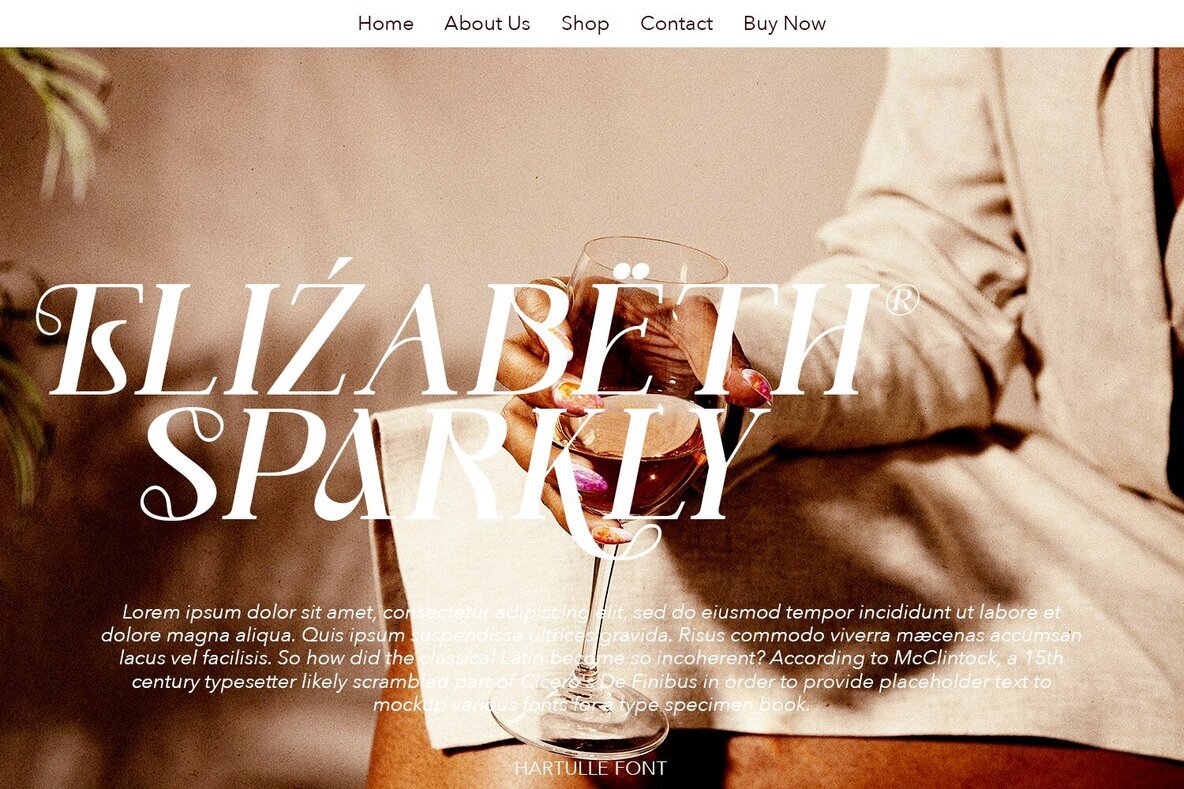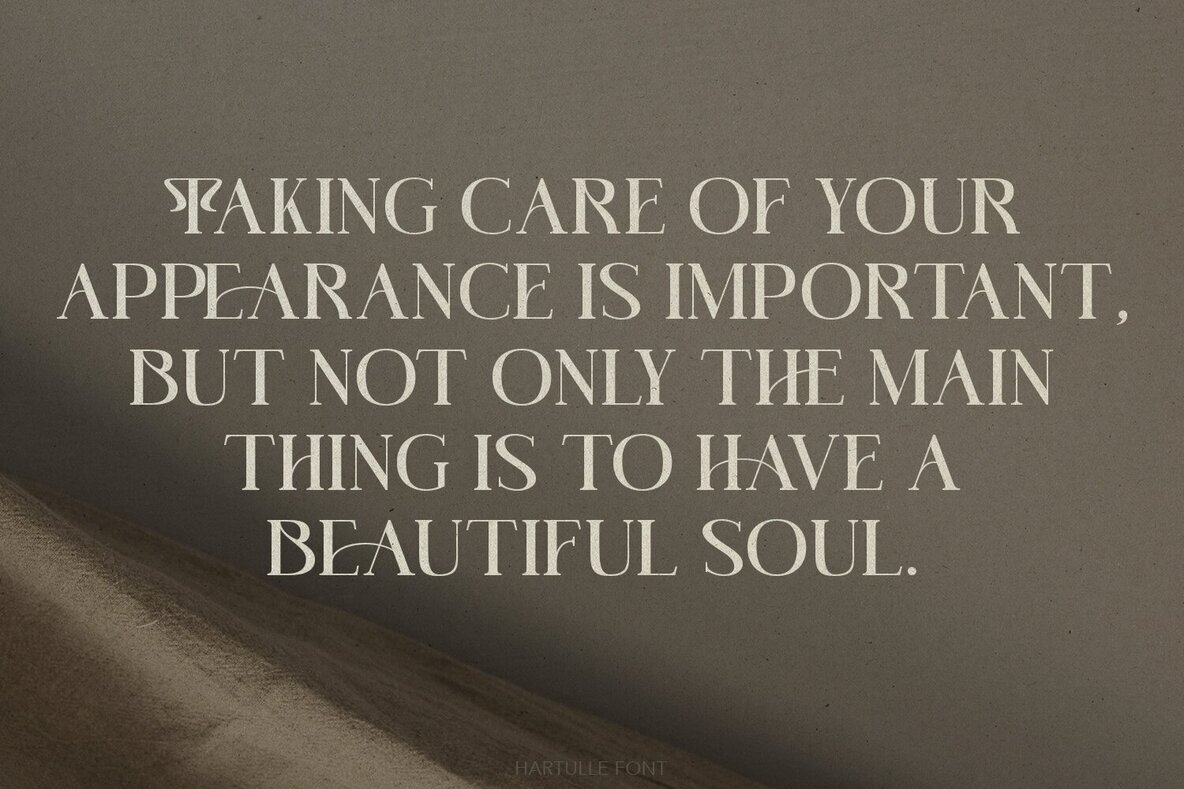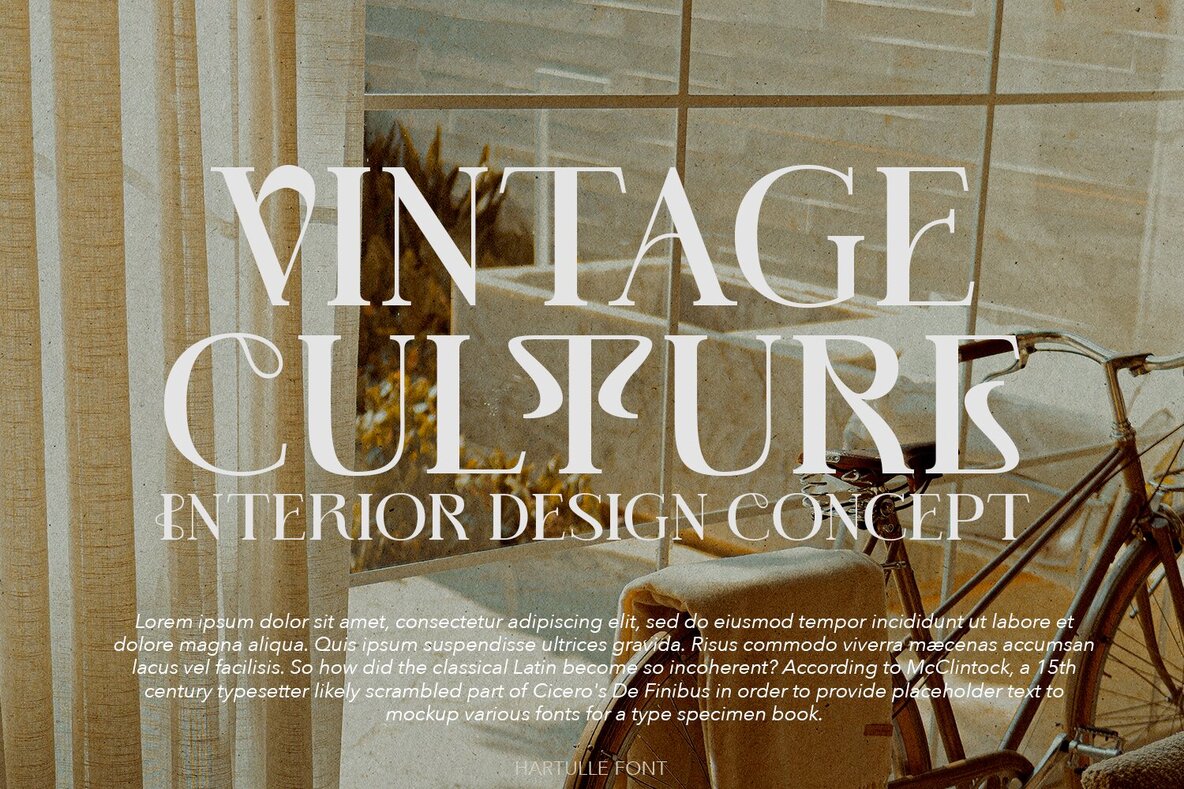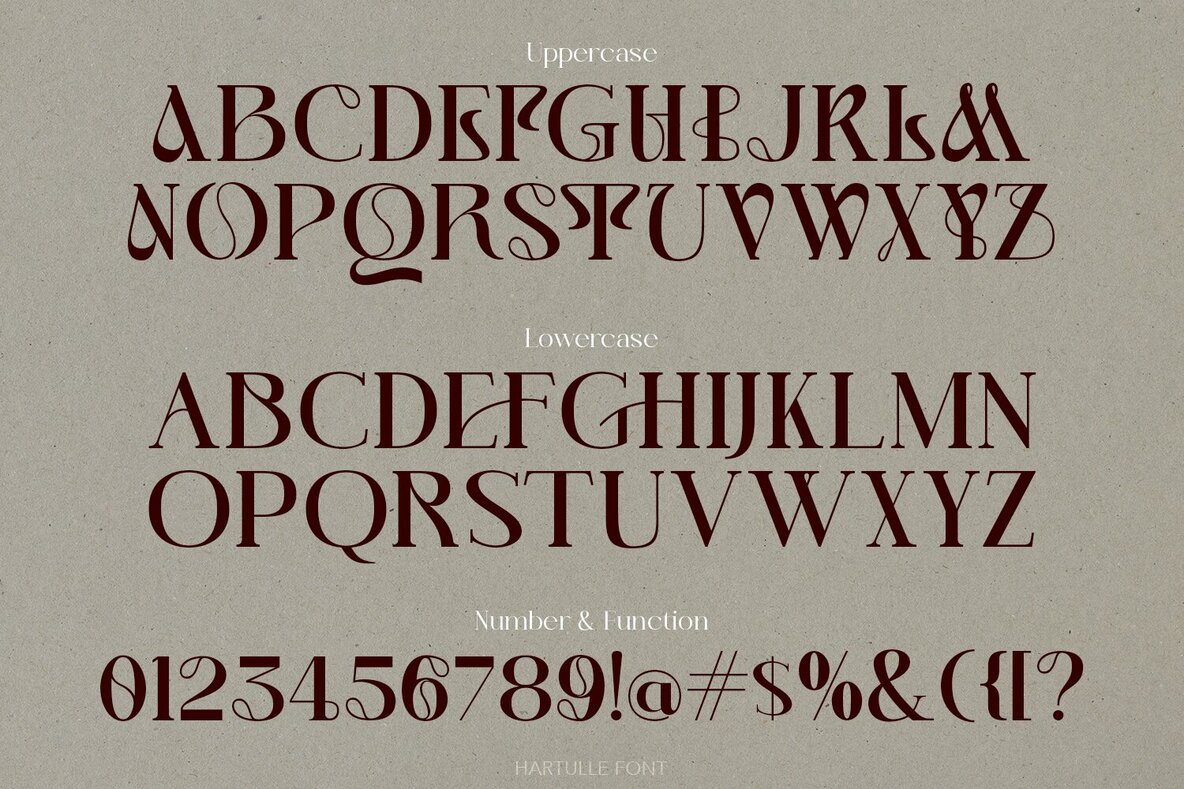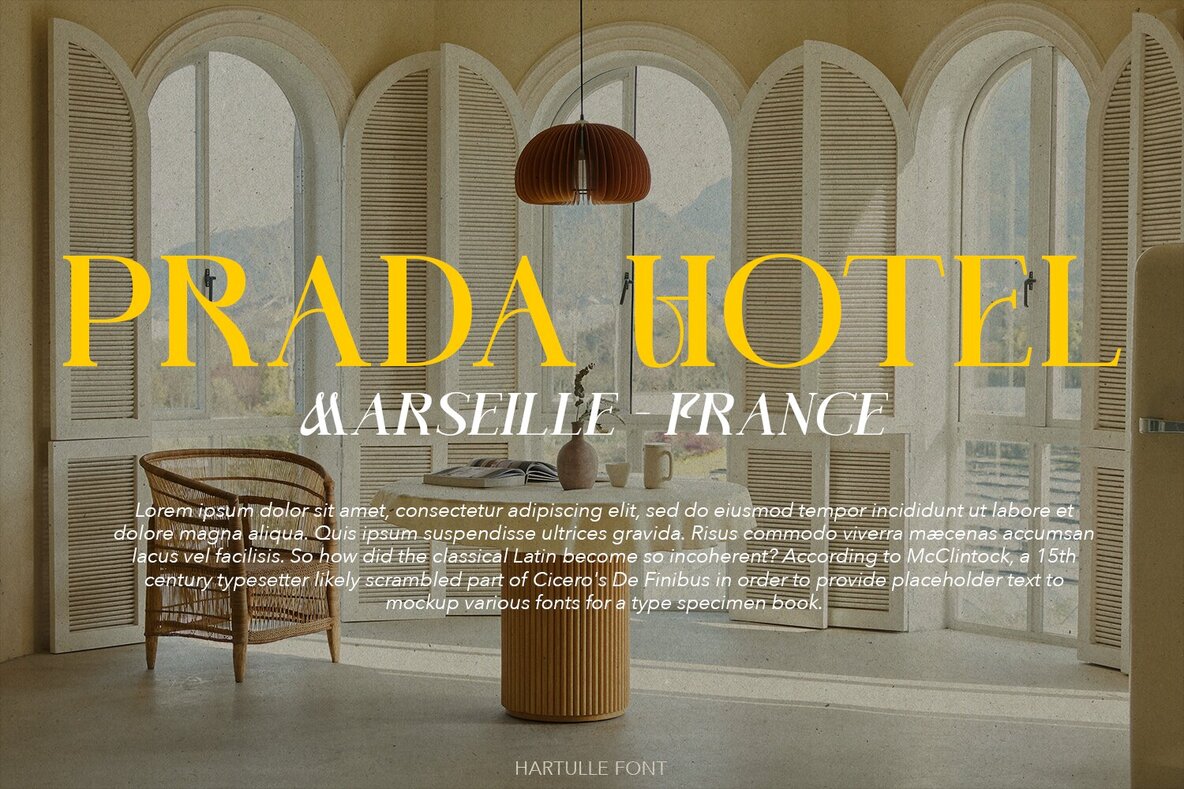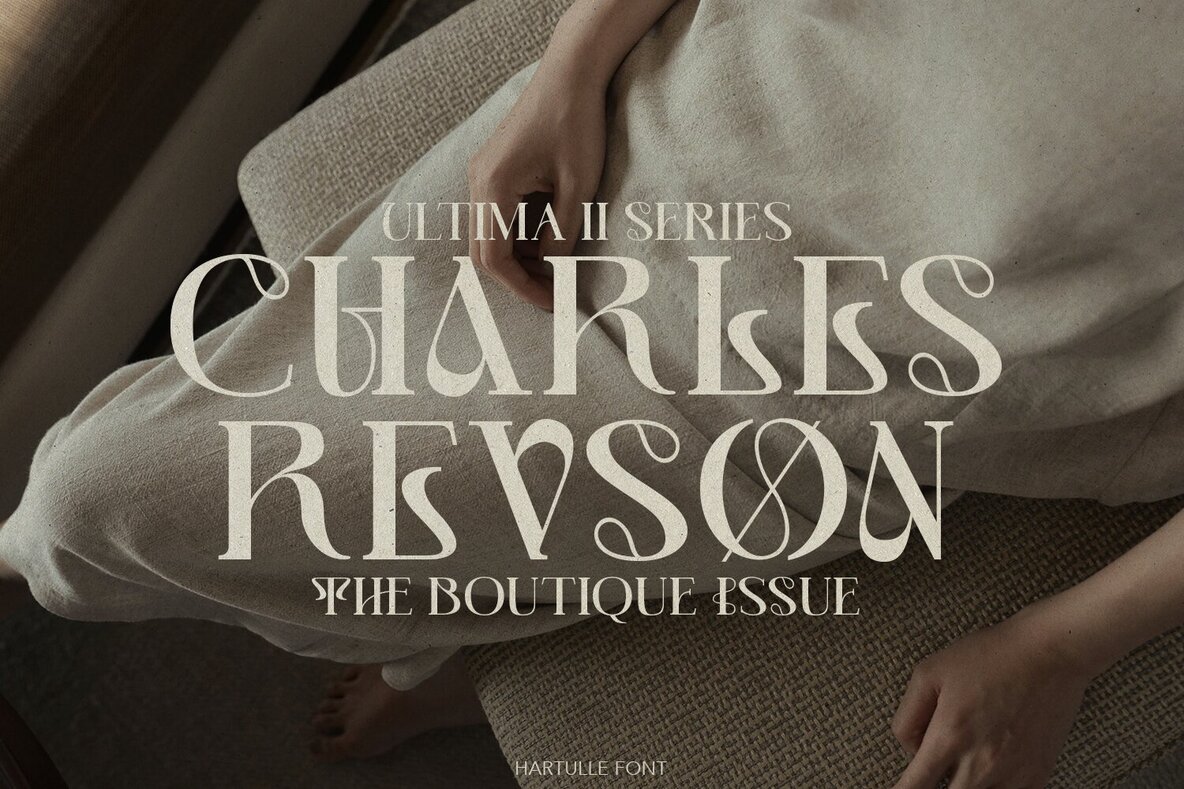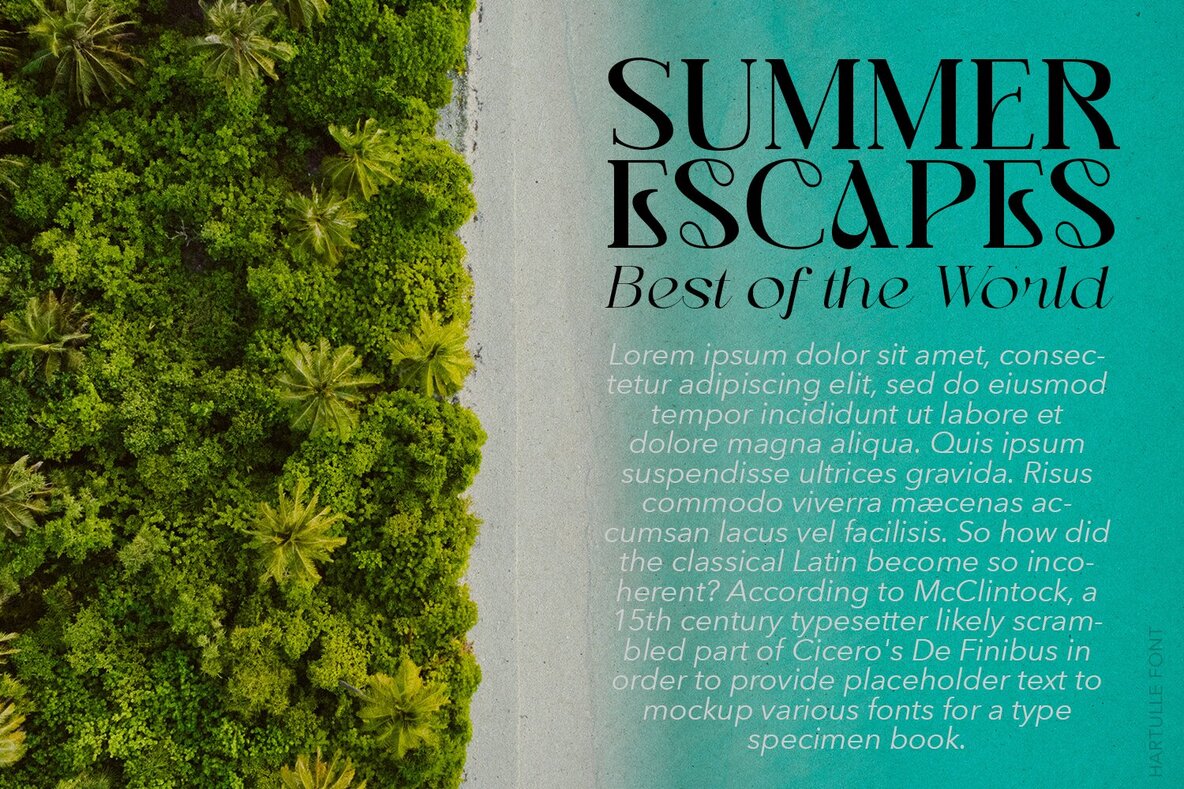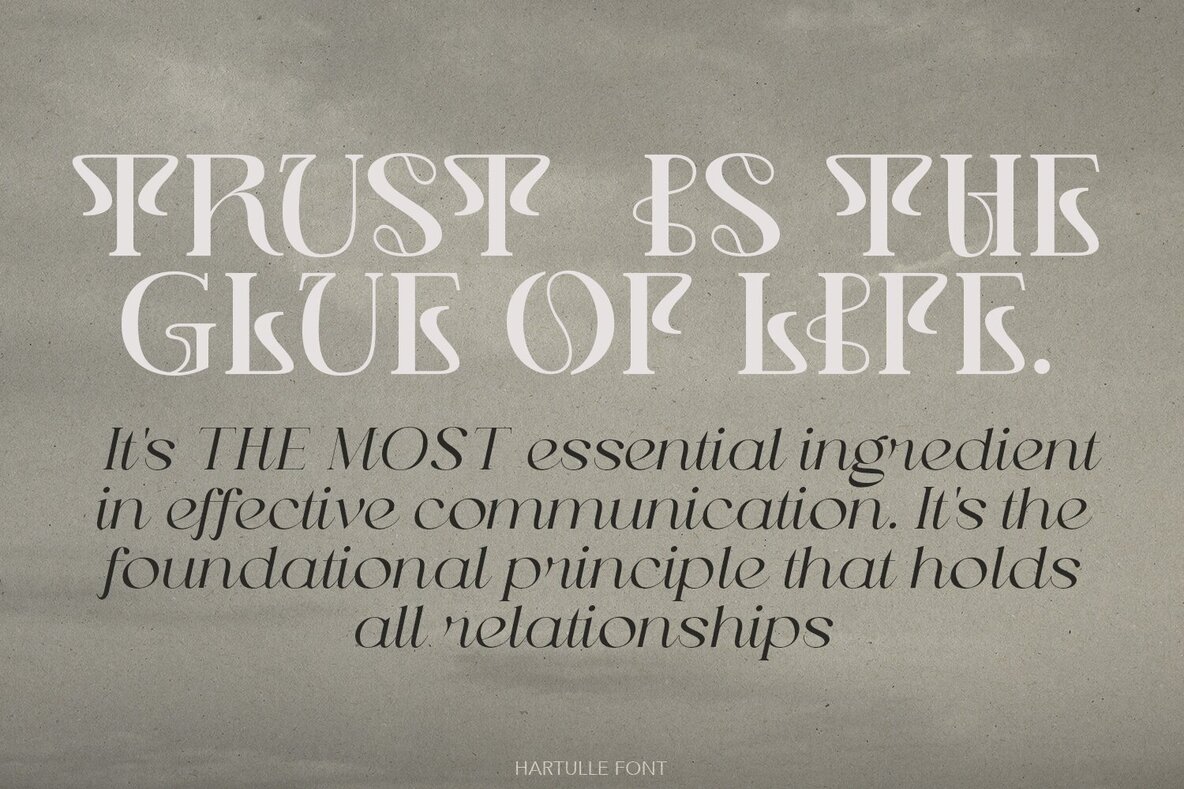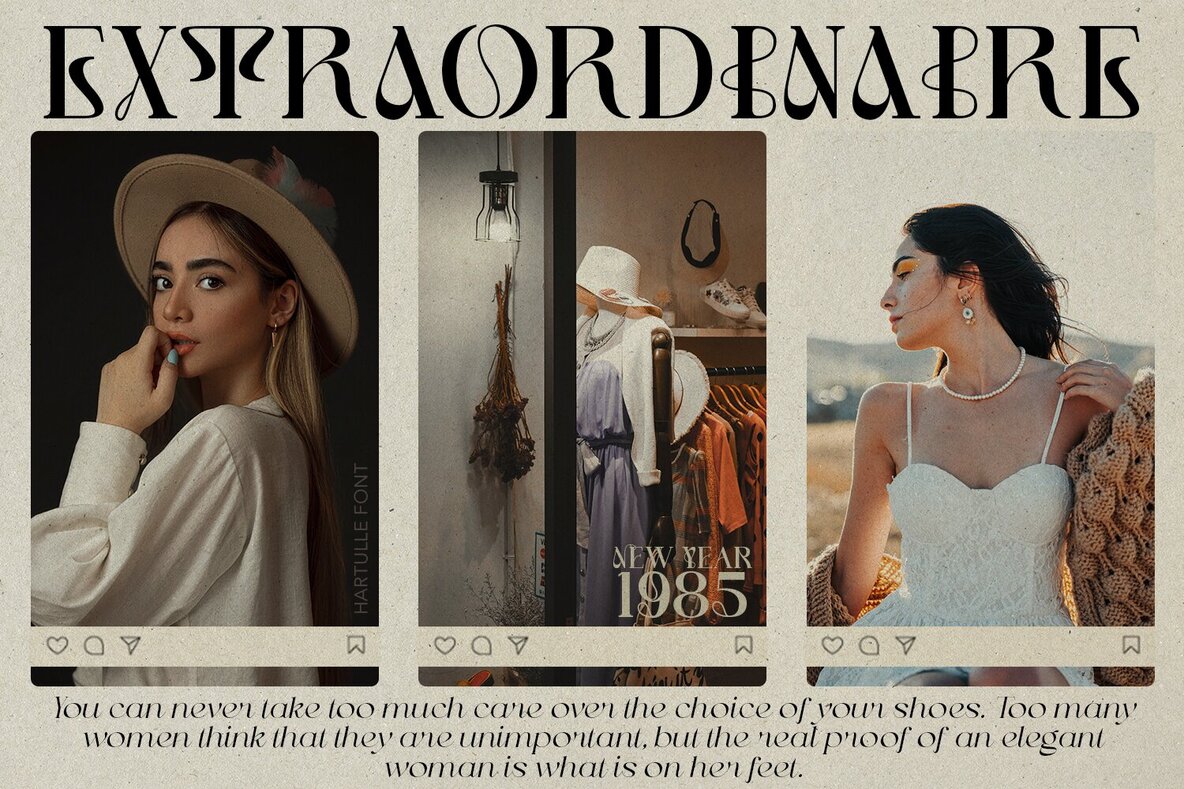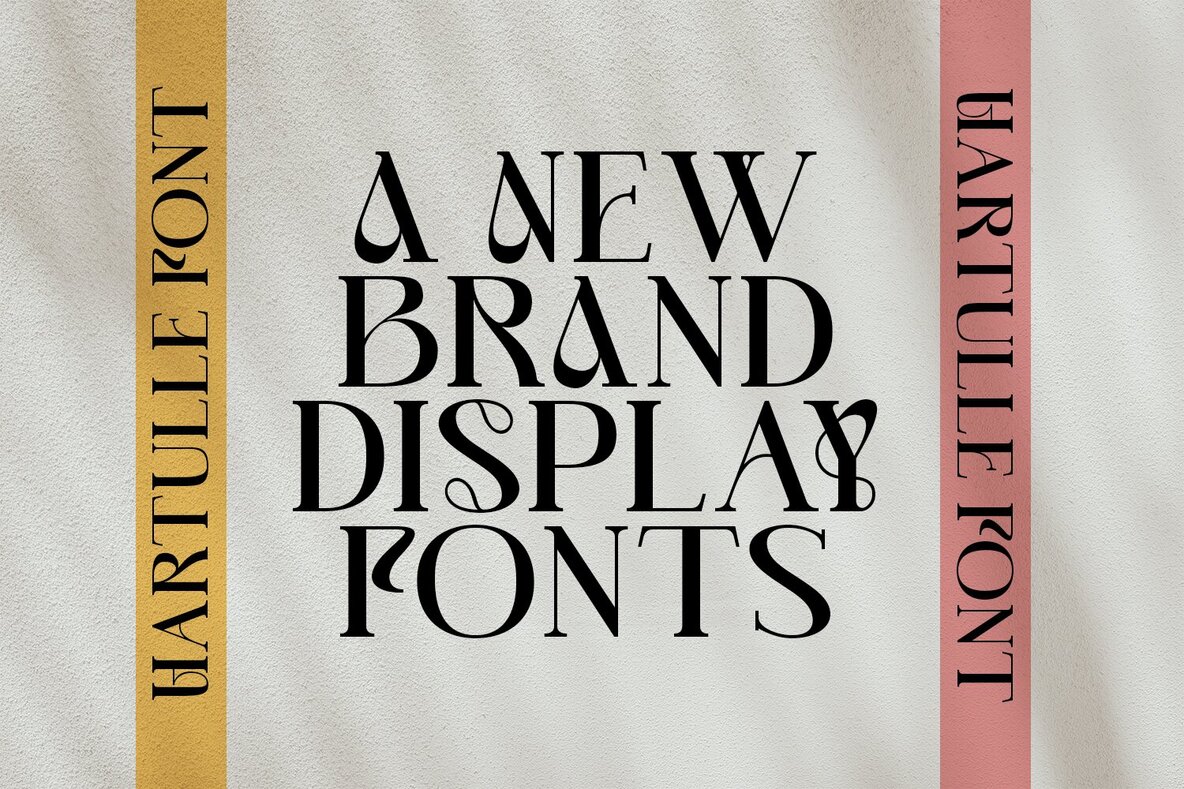
Hartulle Font
Hartulle Regular
Hartulle is a display serif, simplistic, high-contrast sans that is at home in high-end fashion and cultural environments you can explore and combine. use this font for any branding, product packaging, invitation, quotes, t-shirt, label, poster, logo etc.